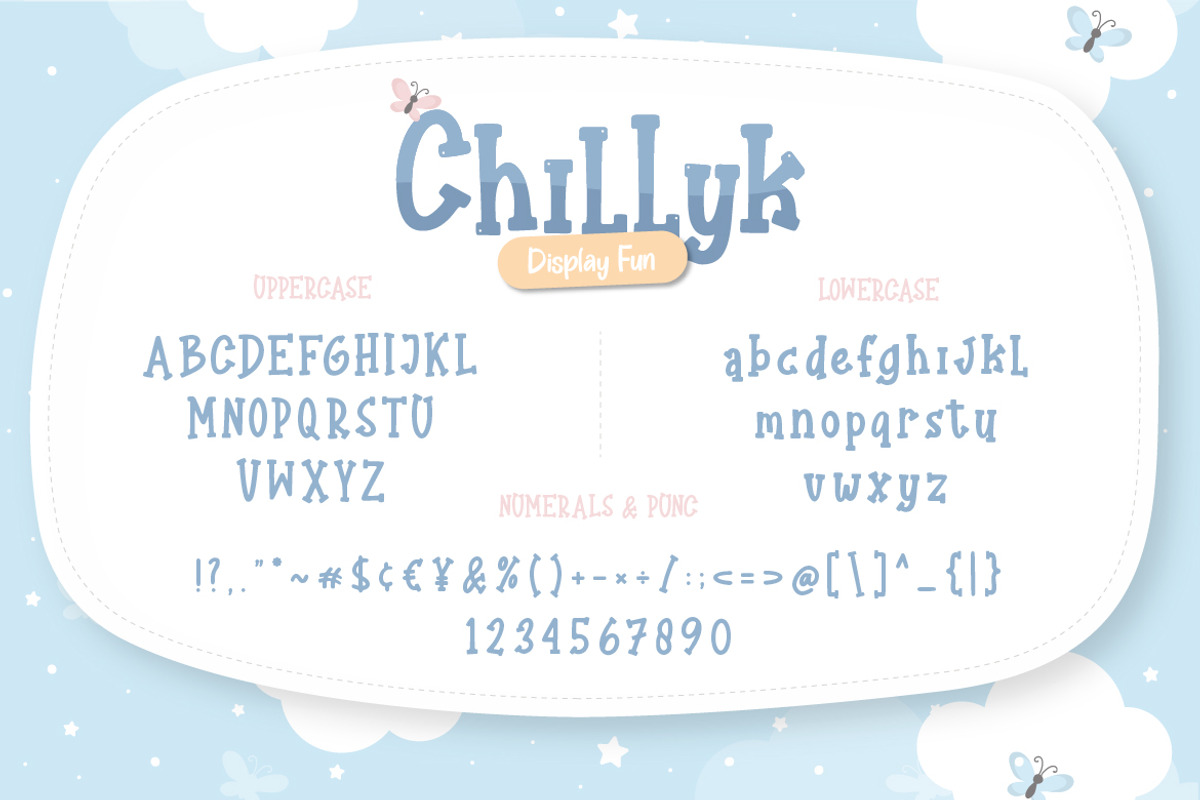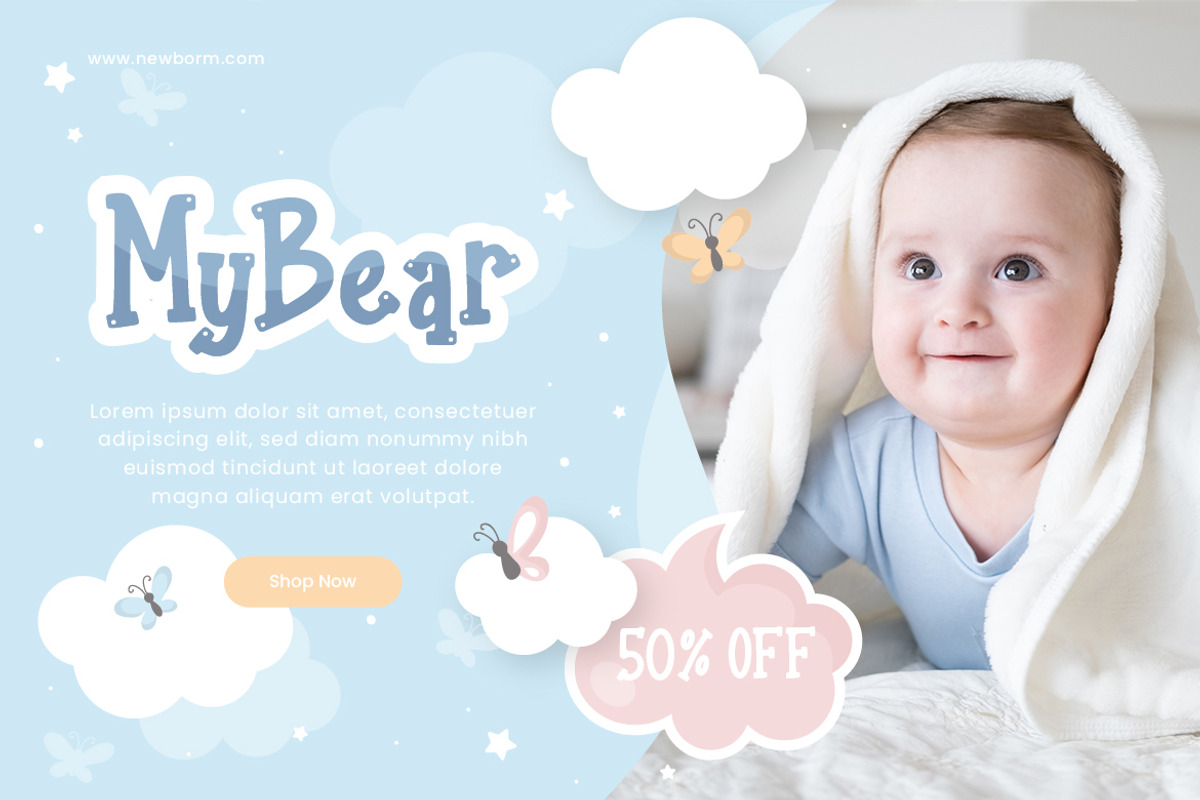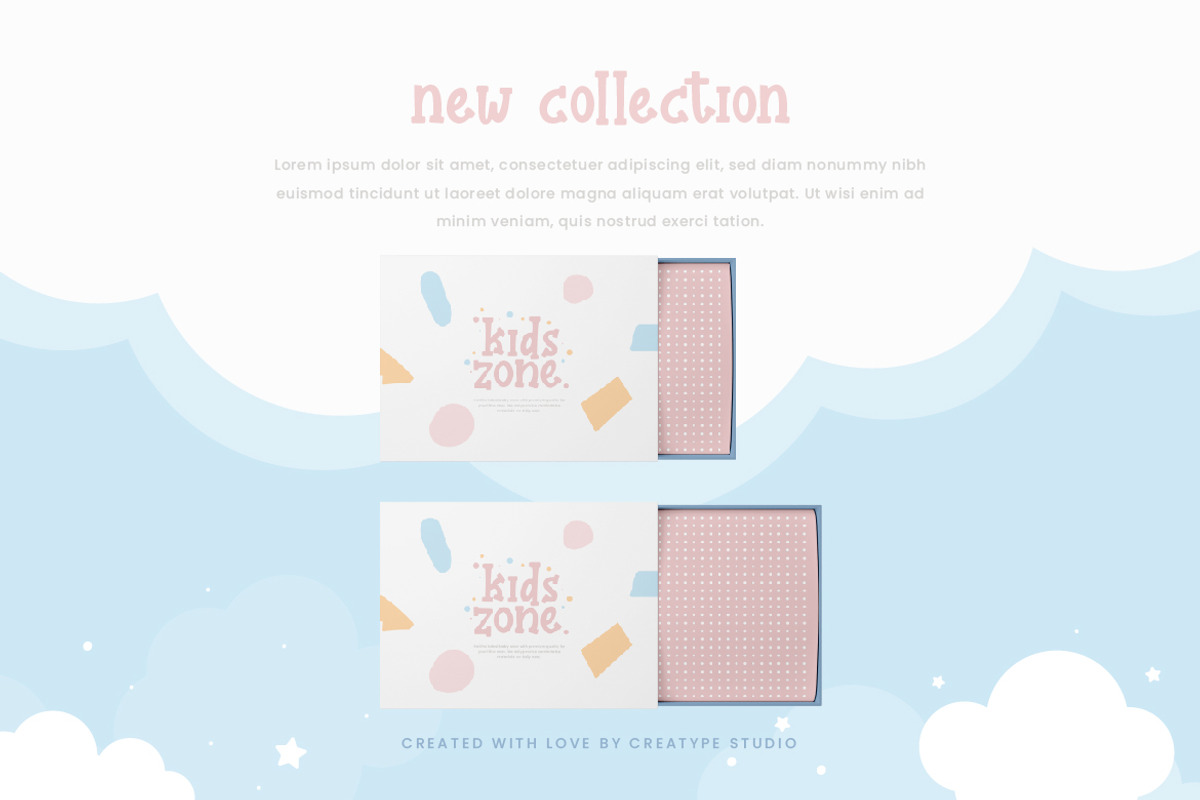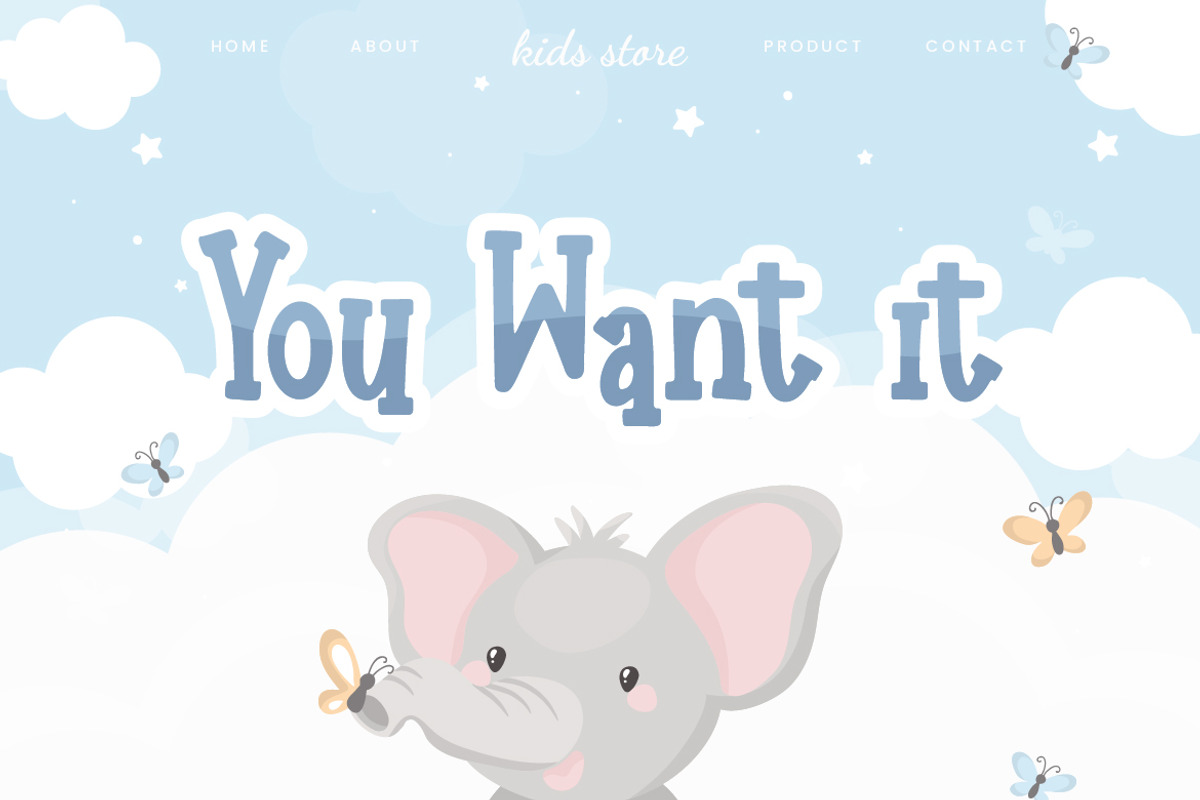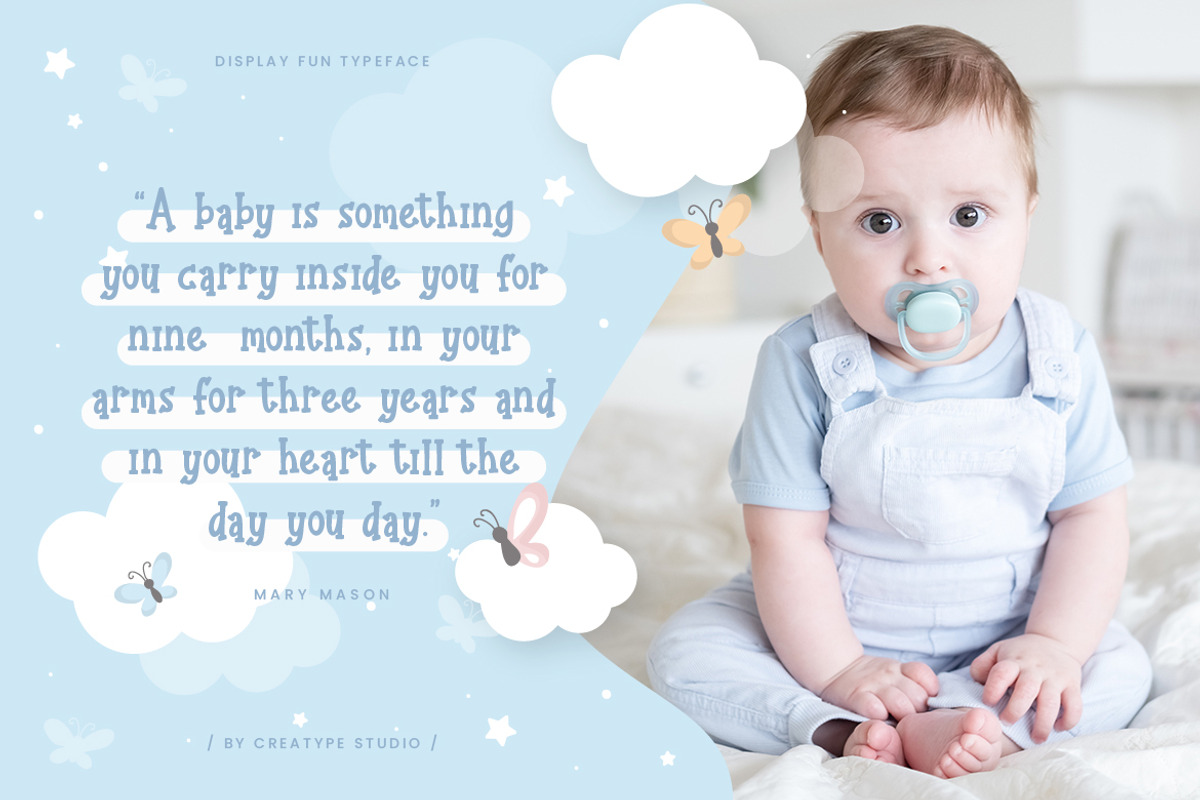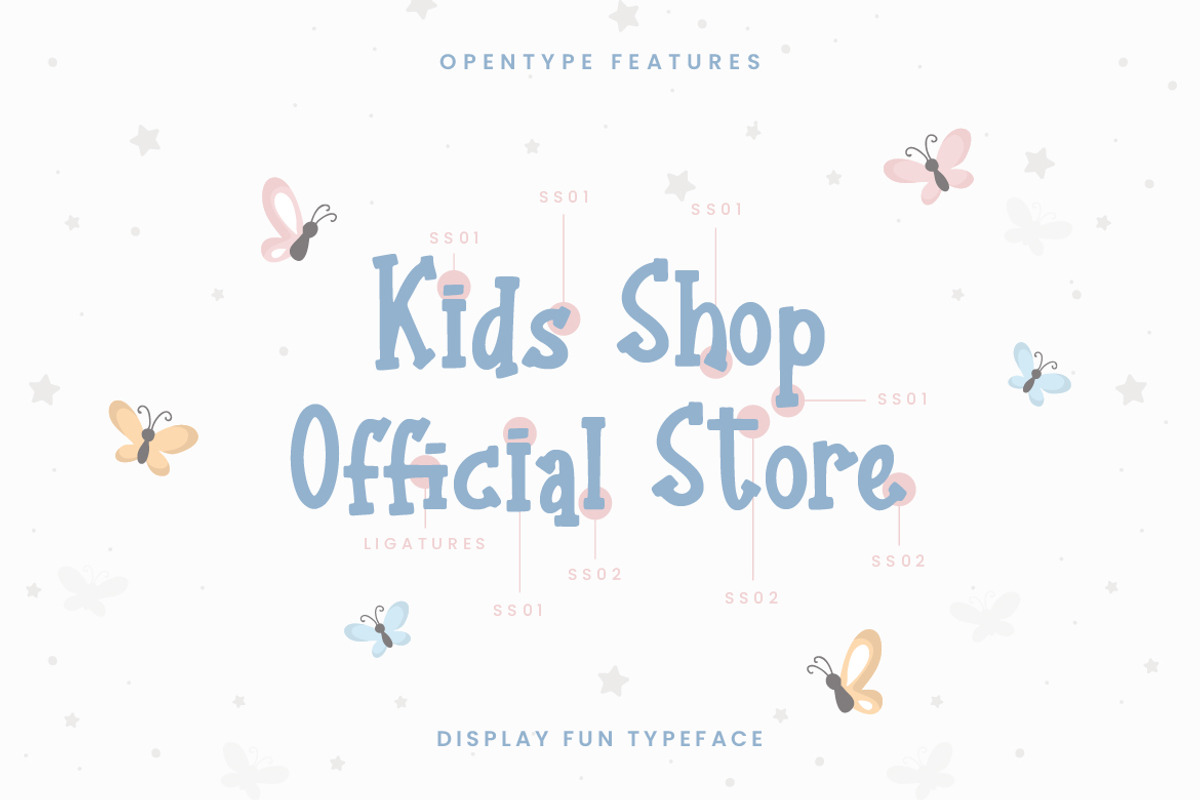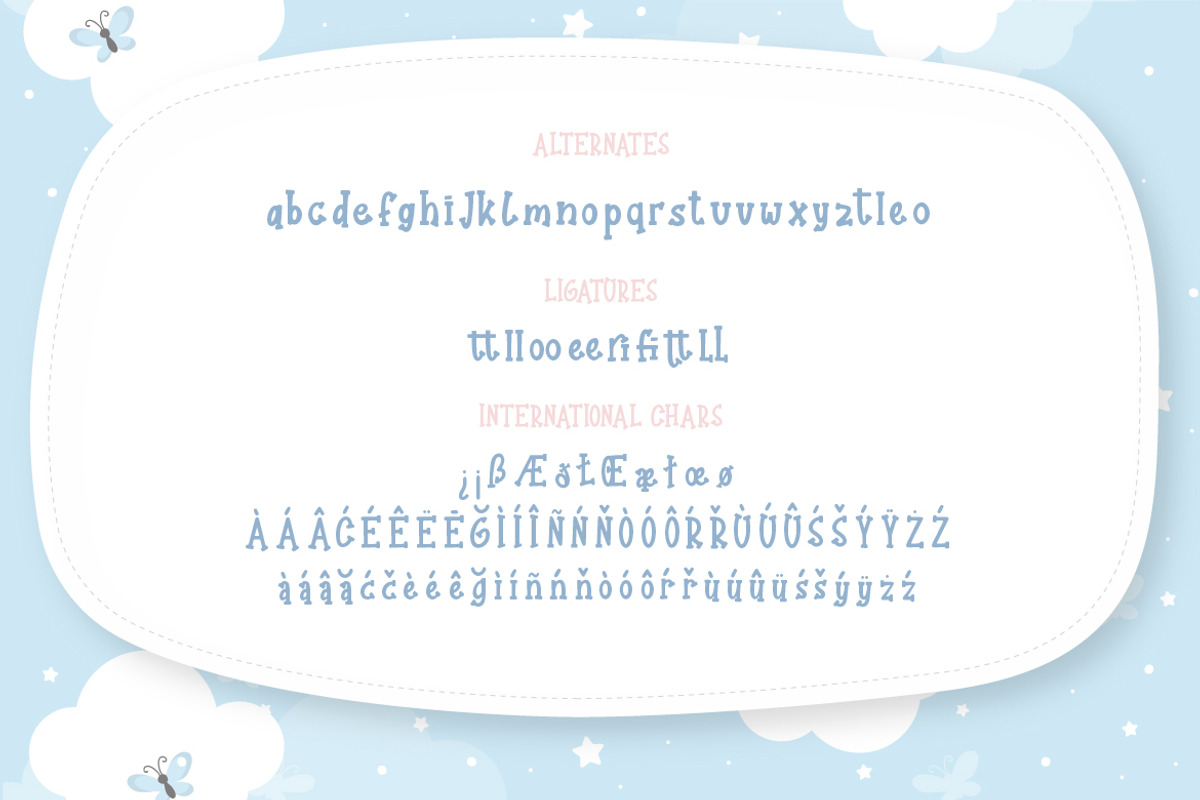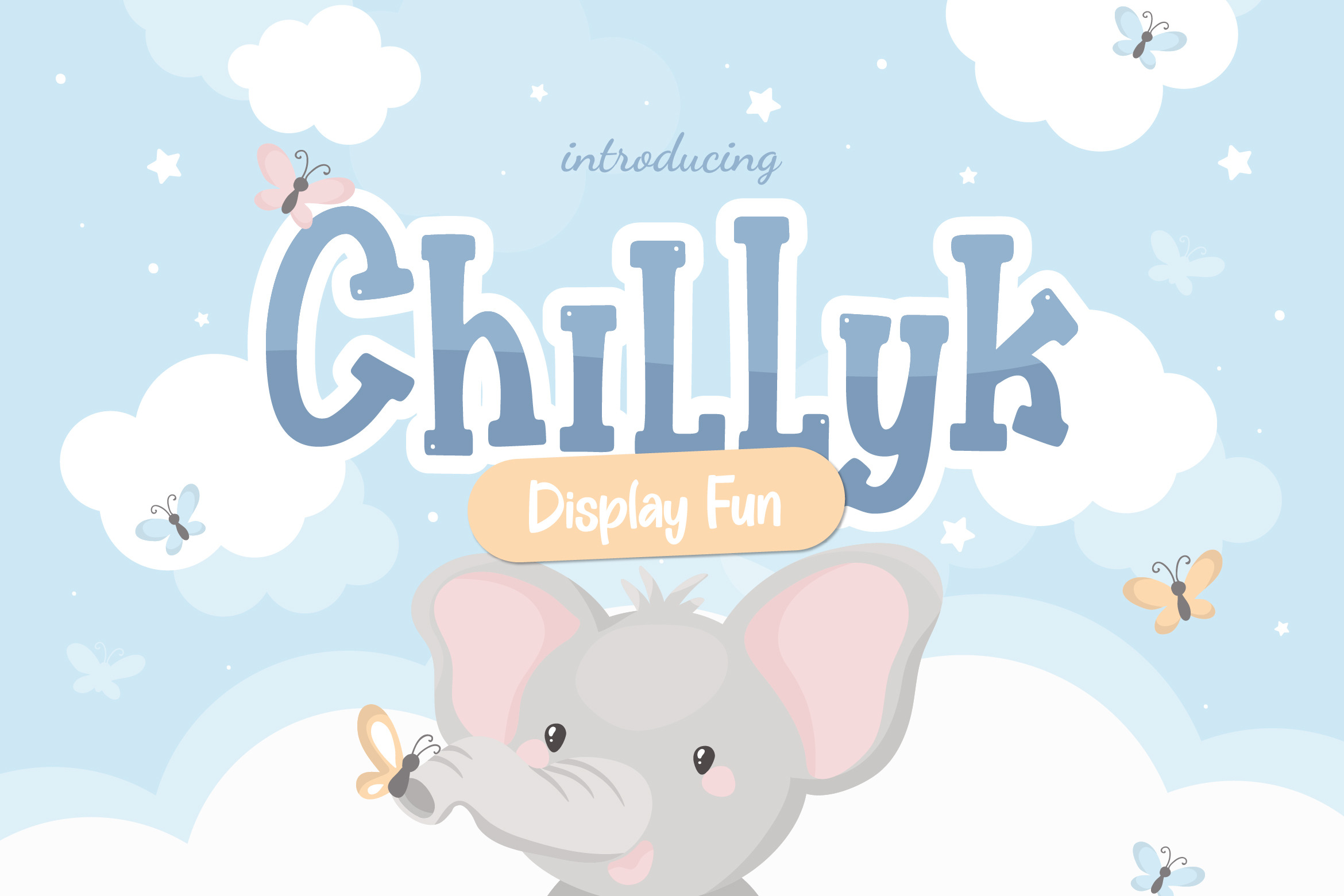
Chillyk Fun Display Business Font
Chillyk is very fun display typeface. This font is perfect for all your craft projects that require a sense of passion and joy. It has a fun look and is perfect as a display font.
Chillyk is perfect for branding projects, logo, wedding designs, social media posts, advertisements, product packaging, product designs, label, photography, watermark, invitation, stationery and any projects that need handwriting taste.
- Ligature & Alternate
- Fonts include multilingual support for; Afrikaans, Albanian, Czech, Danish, Dutch, English, Estonian, Finnish, French, German, Hungarian, Italian, Latvian, Lithuanian, Norwegian, Polish, Portuguese, Slovak, Slovenian, Spanish, Swedish.